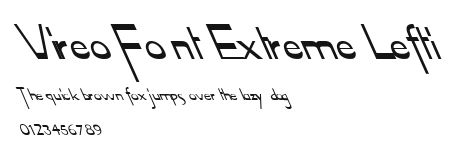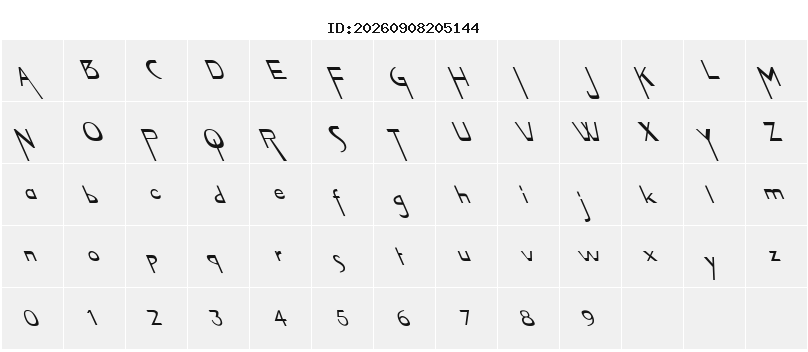
Vireo Font Extreme Lefti Preview
• Font Name: Vireo Font Extreme Lefti
• Full Font Name: Vireo Font Extreme Lefti
About Vireo Font Extreme Lefti.ttf
Vireo Font Extreme Lefti.ttf is a modern, elegant sans-serif font designed for ultimate readability and visual harmony. Perfect for branding, headlines, web design, and print materials.